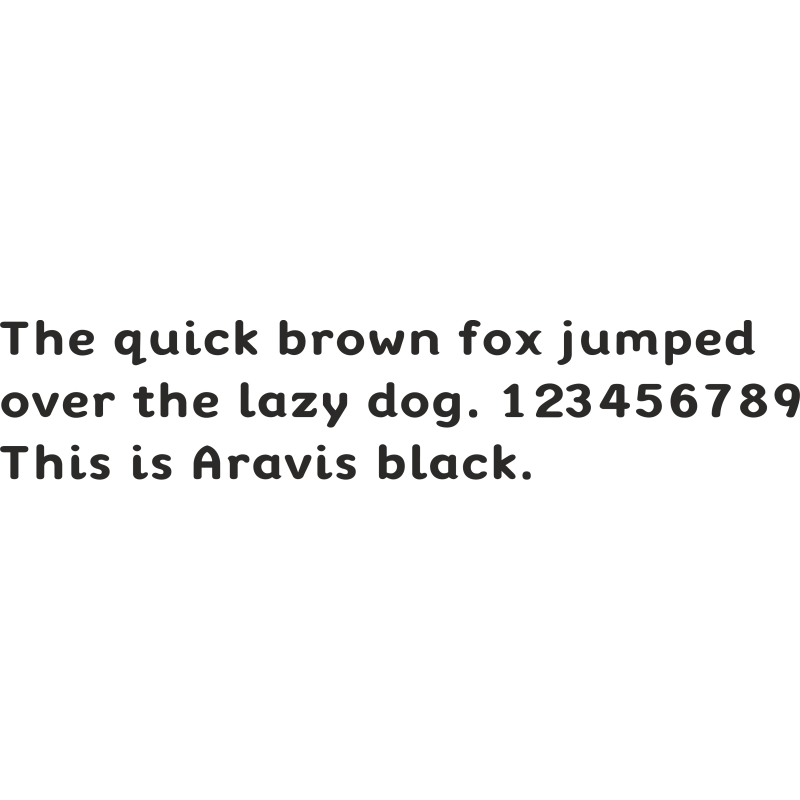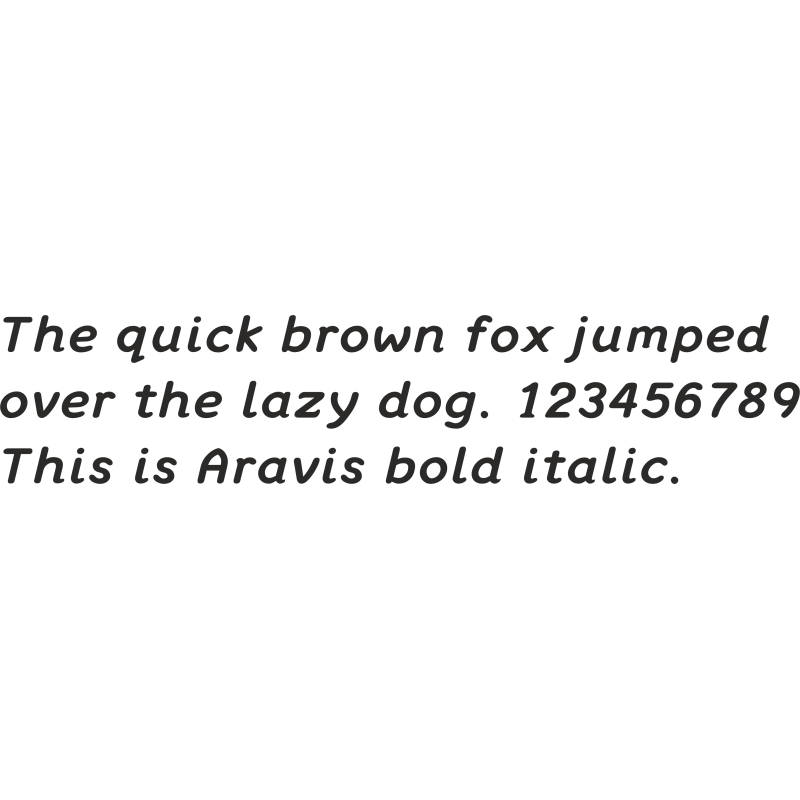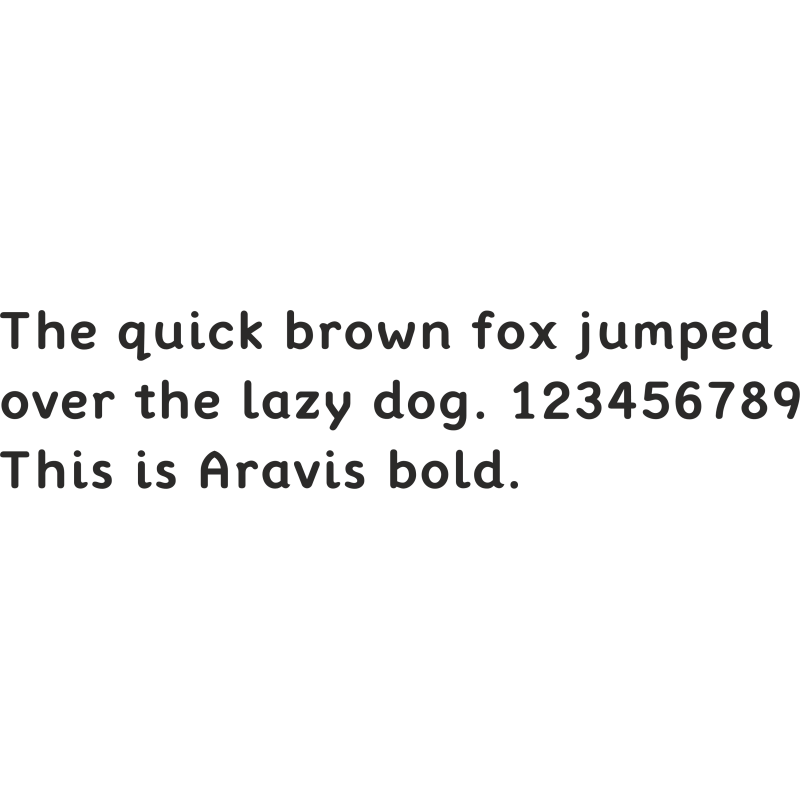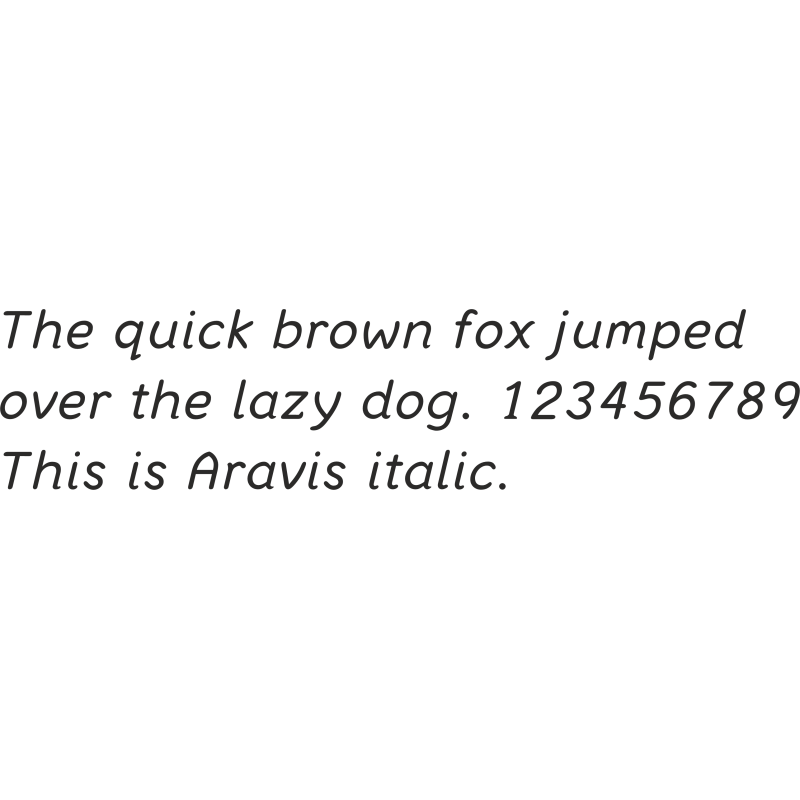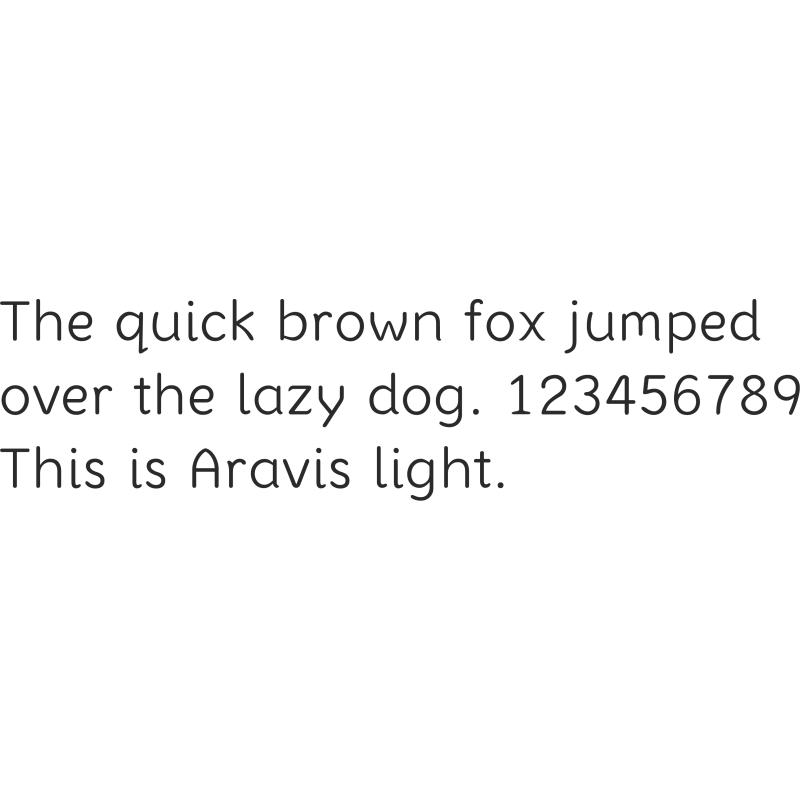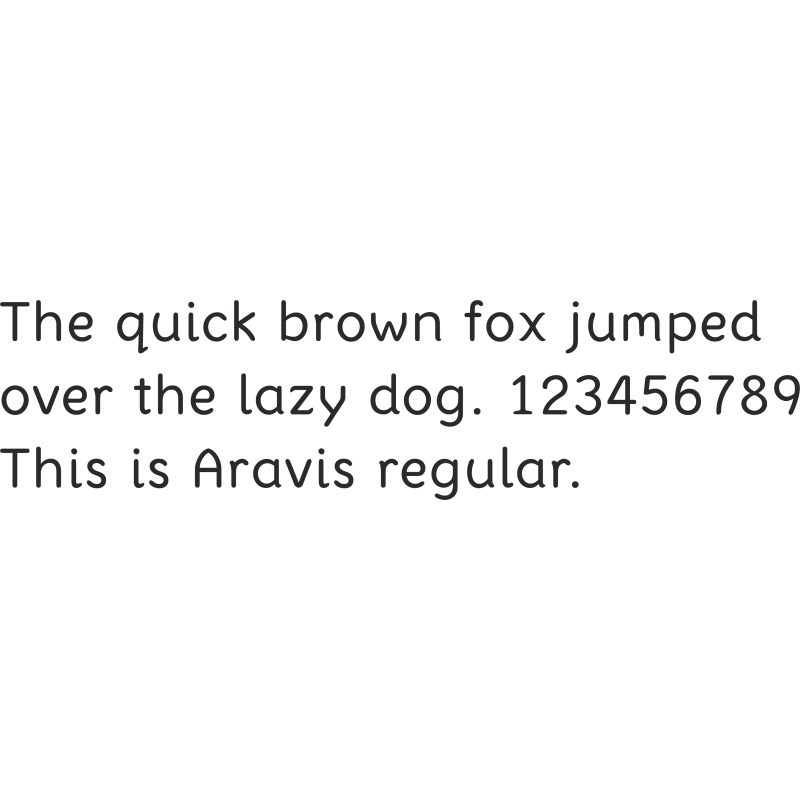
About Aravis 2020 Font:
- Amazingly easy on the eye; designed to draw the reader in with minimal brain bandwidth used to enable more focus on the content.
- Our mission has been to create a font that is scientifically designed to be dyslexia friendly while also being attractive and useful.
Dyslexia features include:
- Each letter is unique even if reversed or flipped.
- The spacing is carefully designed using scientific evidence to help all readers from those who read via word shapes to those who read using phoneme and syllables.
- The Visual Stress caused by pattern glare is minimised in comparison to other common fonts when measured by professionals.
- Mid-sized font to make it easy to convert artwork from common fonts. This is very helpful when providing reasonable adjustments for students with Dyslexia.
- Based on algorithms found in nature.